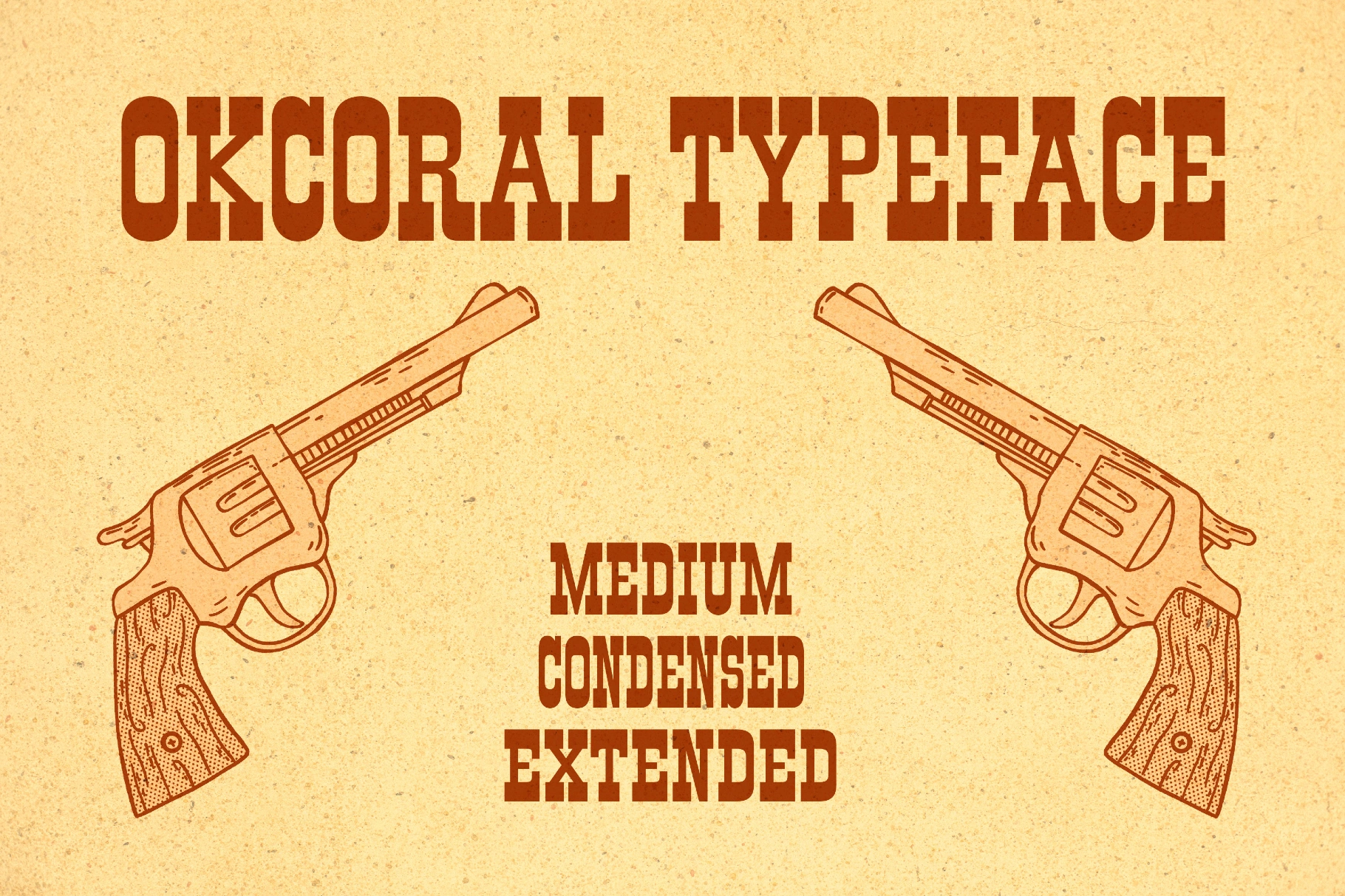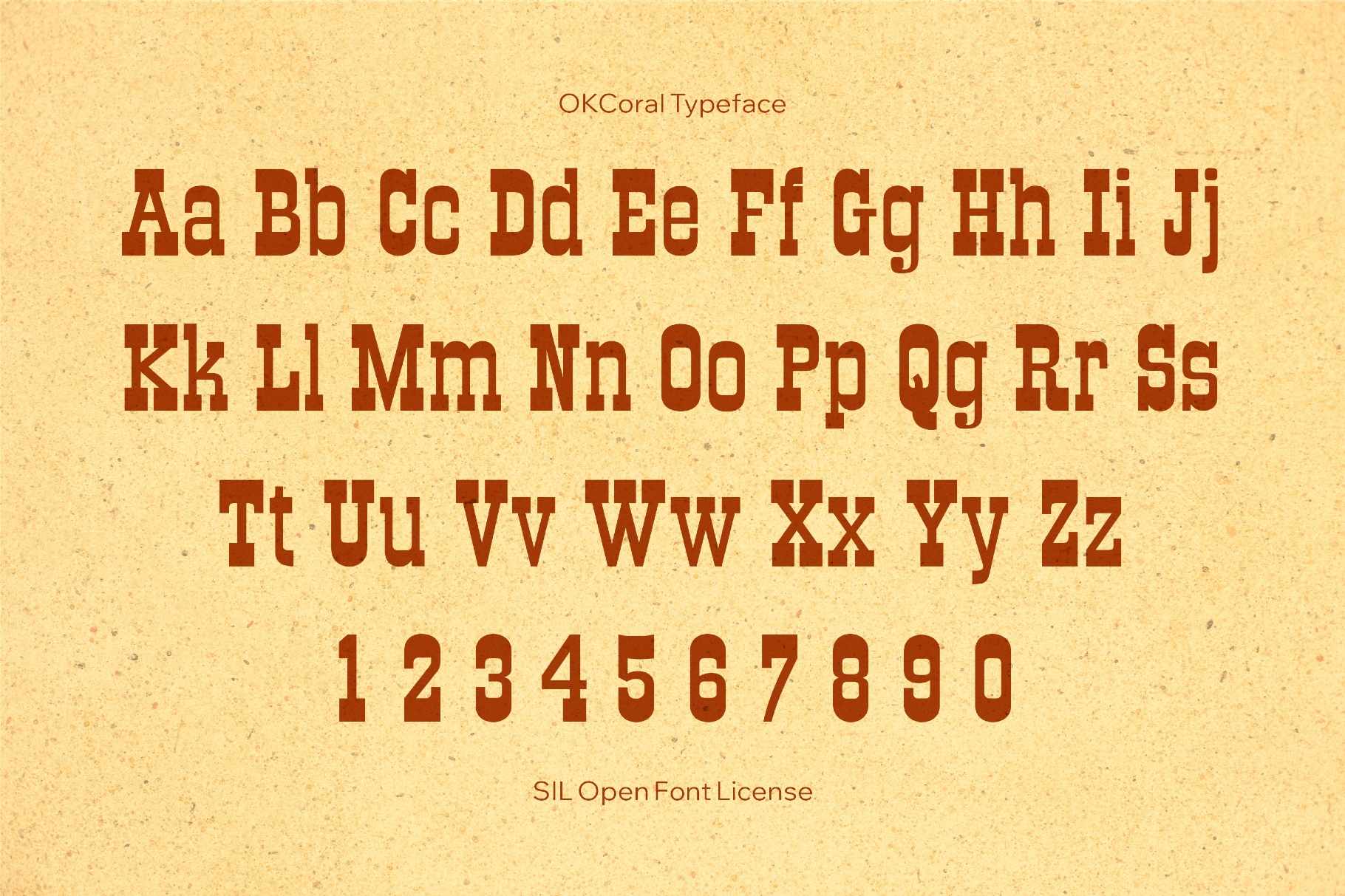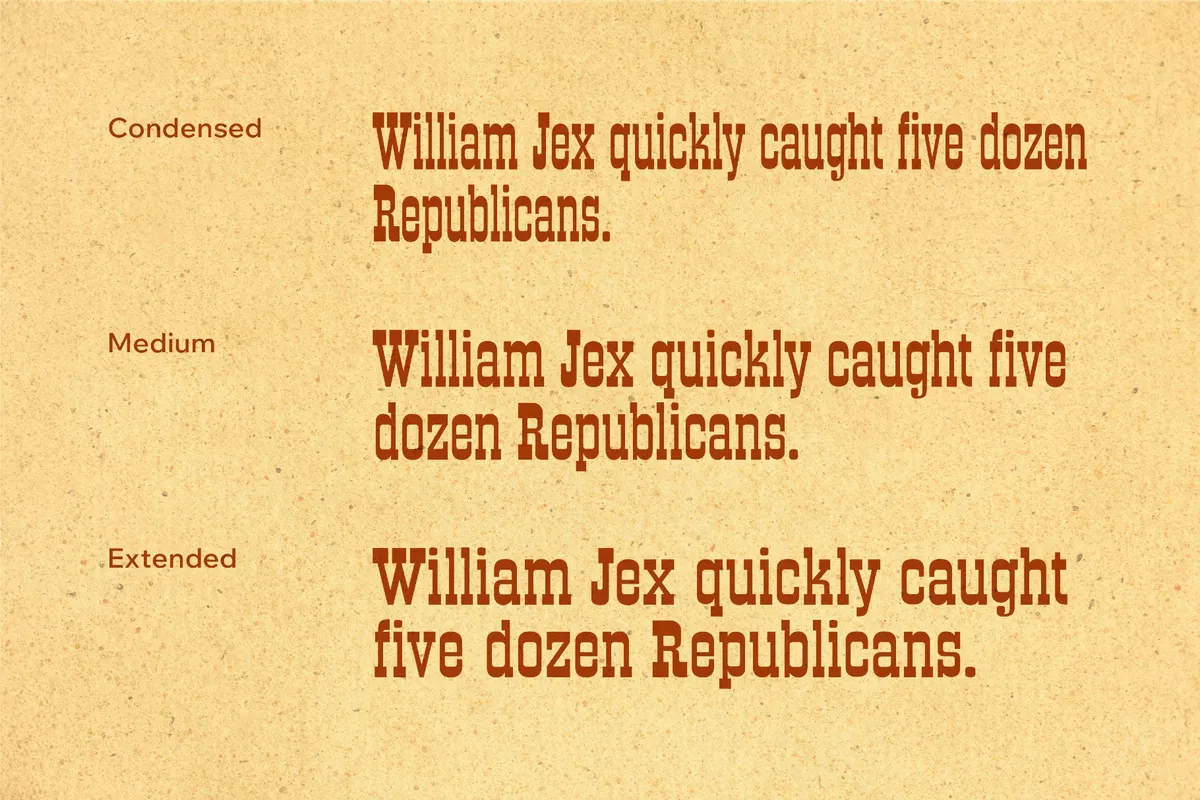
OKCoral Typeface
OKCoral Typeface is a classic Western slab with a woodtype effect. It's built from wide blocky letters, high contrast, and tight spacing for the presence of a vintage poster. It’s well-suited to lifestyle branding, packaging, café menus, editorial headlines, craft-brew labels, rodeo and country music posters, steakhouse or bar logos, festival and fair signage, book or comic covers, wedding suites, social media graphics, and merch design.
- Three styles: Condensed, Medium, and Extended.